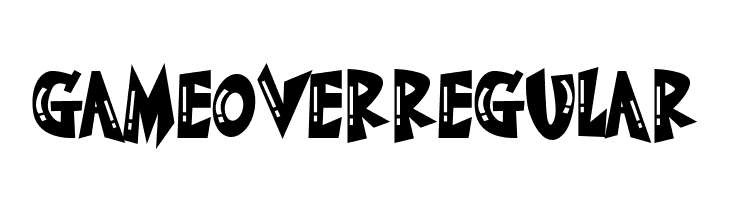
A bold, playful font with star-patterned characters and a geometric style.
A modern, rounded font with bold, playful characters.
A bold, outlined font with a playful, retro style.
A playful, informal handwritten font with uneven strokes and a whimsical style.
A playful, hand-drawn outline font with a whimsical and artistic style.
A modern, light sans-serif font with clean lines and balanced spacing.
A playful, handwritten font with a casual and informal style.
A casual, handwritten font with elongated, slightly slanted characters.
A modern, geometric font with clean lines and uniform stroke width.